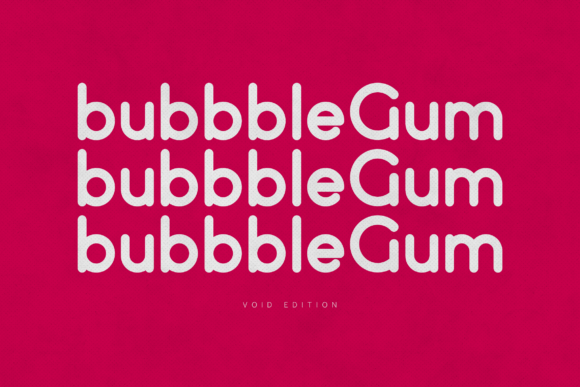
The Sweet Spot: How Bubble Gum Font Brings Fun and Personality to Your Designs
I still remember the time I was working on a branding project for a trendy kids’ clothing line. My client wanted a font that was playful, youthful, and Instagram-worthy. I spent hours scouring the internet for the perfect typeface, but nothing seemed quite right. That was until I stumbled upon the Bubble Gum font. Its bubbly, rounded letters immediately caught my attention, and I knew I had found the perfect fit. In this article, I’ll share my experience with the Bubble Gum font, its features, and how to make the most of it in your designs.
An Honest Review: The Good and the Quirky
What I Love About Bubble Gum Font
- ✨ Playful and friendly personality: Bubble Gum font is designed to bring a fun and youthful vibe to your designs, making it perfect for branding, packaging, and advertising aimed at a younger audience.
- ✅ Versatile and adaptable: This font works well in various design contexts, from digital content to print materials, and can be used for logos, posters, social media graphics, and more.
- 💡 Easy to read and understand: Despite its playful nature, Bubble Gum font remains clear and legible, even at smaller font sizes.
While Bubble Gum font is an excellent choice for many design projects, there are a few things to keep in mind:
- 🤔 Limited use in formal contexts: Due to its playful nature, Bubble Gum font may not be the best fit for formal or professional designs, such as corporate branding or business reports.
- ⚠️ Overuse can be overwhelming: As with any bold, attention-grabbing font, be mindful of overusing Bubble Gum font, as it can quickly become overwhelming and detract from your message.
- Explore the OpenType features, such as stylistic alternates and ligatures, to add visual interest to your text.
The Story Behind Bubble Gum Font
Bubble Gum font was designed with the intention of creating a playful and friendly typeface that would bring a smile to people’s faces. The designer, inspired by the carefree nature of childhood, aimed to capture the essence of fun and youthfulness in this font. With its rounded letters and bouncy feel, Bubble Gum font is sure to add a touch of whimsy to any design project.
Q: What is the best way to use Bubble Gum font in my designs?
A: Bubble Gum font works best as a display font, used sparingly to add emphasis and visual interest to your designs. Use it for headings, titles, or short phrases to create a playful and eye-catching effect.
Q: Is Bubble Gum font suitable for digital use?
A: Absolutely! Bubble Gum font is optimized for digital use and works well in various digital contexts, including social media graphics, website headers, and mobile apps.
Q: Can I use Bubble Gum font in print materials?
A: Yes, Bubble Gum font can be used in print materials, such as posters, flyers, and brochures. Its clear and legible design makes it suitable for a wide range of print applications.